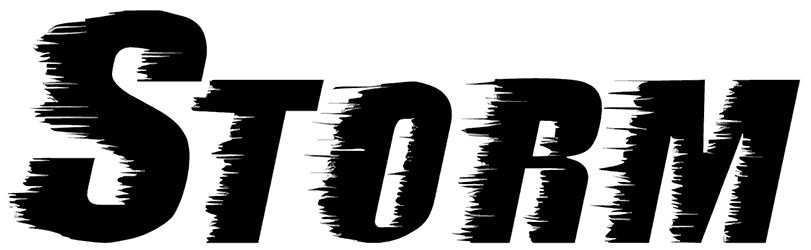
Storm Font
Designed byDieter Schumacher
If you are a fan of top speed, Storm font is marvelous for your projects, like cars, automotive ads, sports posters, movie titles, and anything related to speed. Even by watching the font, the adrenaline of your body tends to rise.
This fast-looking and fast font with two styles of uppercase and without lowercase letters can be a significant option for attracting much attention at the moment.